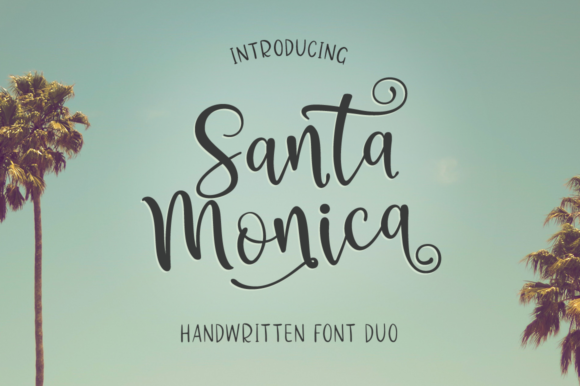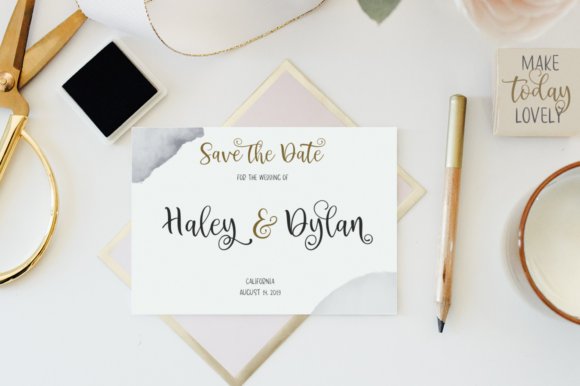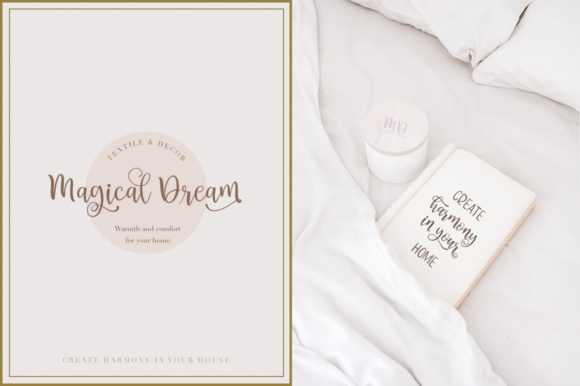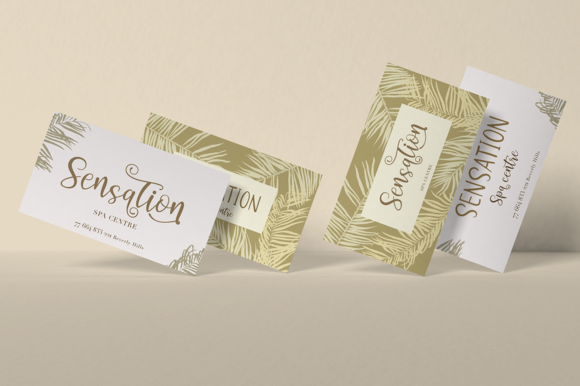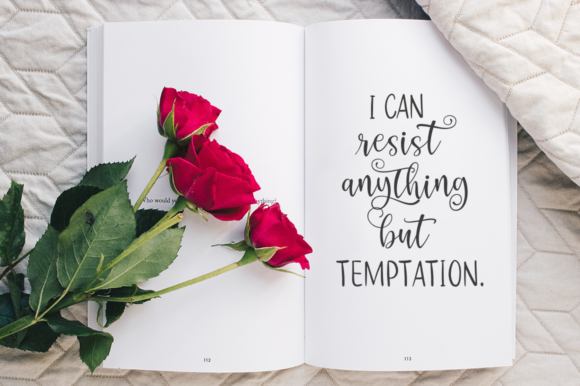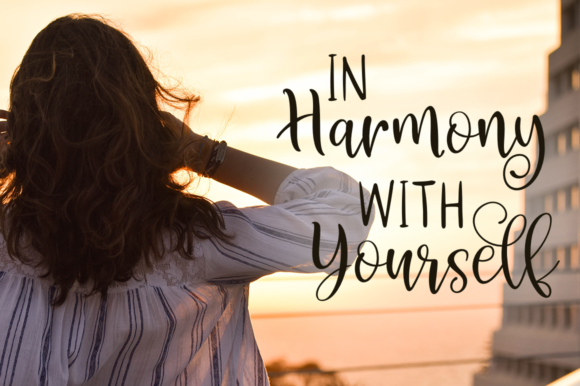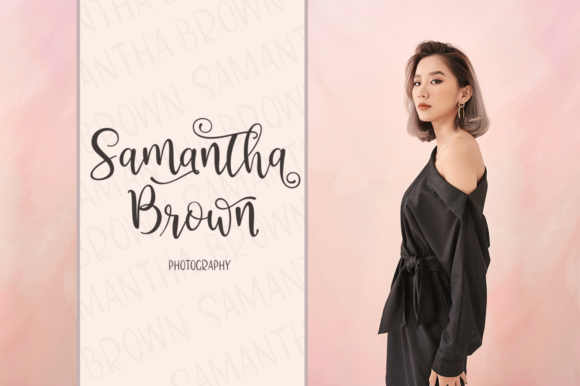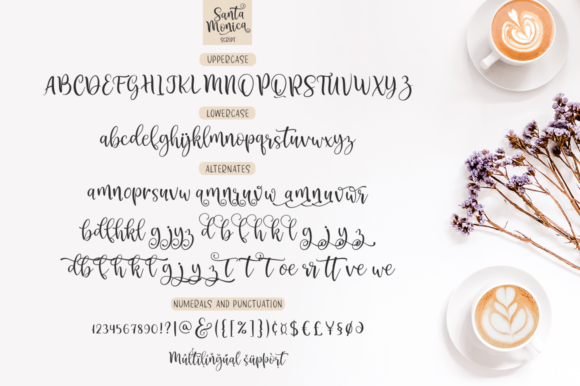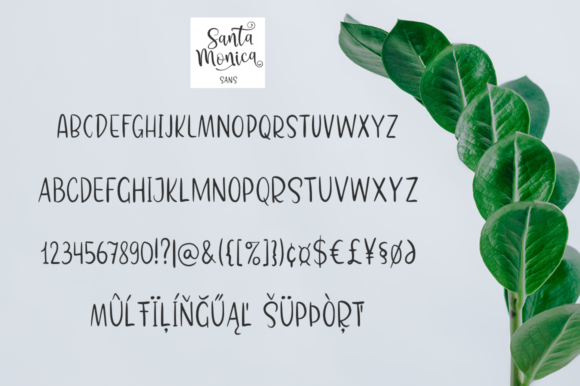
Santa Monica Duo Font
About Santa Monica Duo Font
Inspired by the Californian lifestyle, Santa Monica is a beautiful and charming font duo that celebrates the easy things in life.